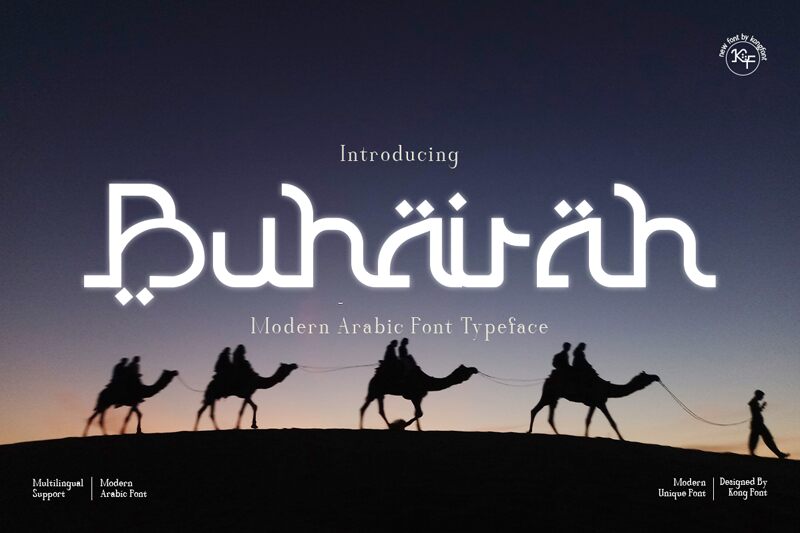
Buhairah font designed by Kong Font is an excellent example of a foreign-themed typeface used to impersonate Arabic letters and style. The designer’s main influence was the Arabic alphabet and calligraphy to create this free font. Yet Buhairah is in reality a roman alphabet font with no symbols that could refer to Arabic. Despite being a Latin-inspired font, viewers that cannot read Arabic will have the impression that the text is Arabic.
Use Buhairah in signs, printed banners, magazines, newspapers, flyers, wall posters, and packaging boxes. It will also fit websites either in headings or small blocks of text. Other uses include restaurant menus, company cards, letters, book covers, and digital designs.